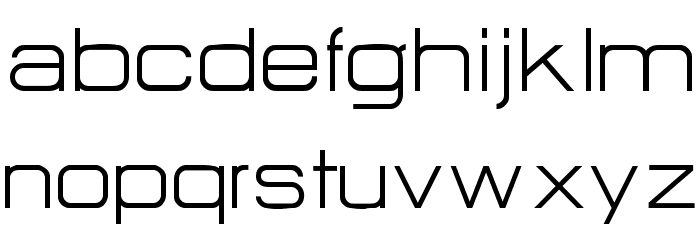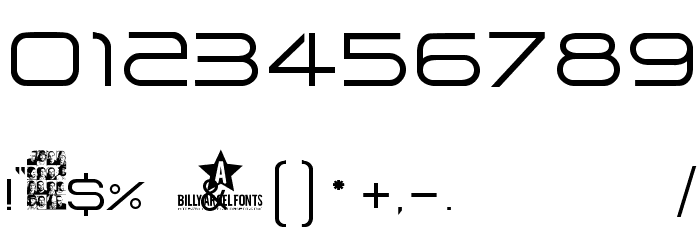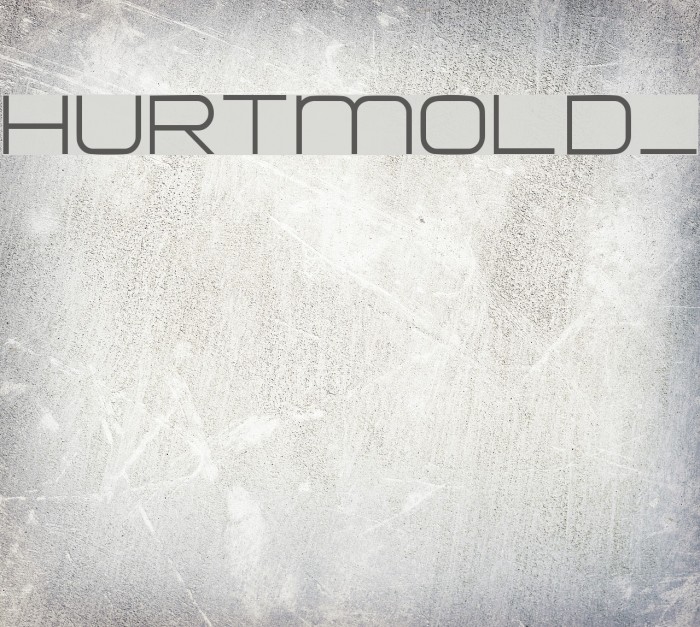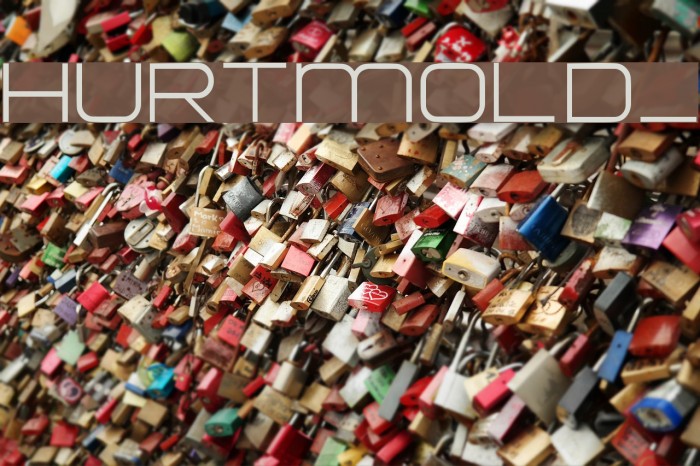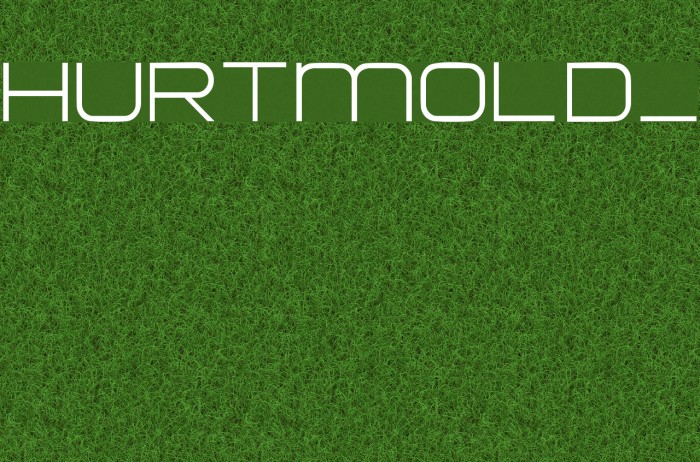
HURTMOLD_ Font
This font features a modern, geometric design with clean lines and a minimalist aesthetic. The uppercase and lowercase letters are uniform in width, creating a balanced and harmonious appearance. The characters are slightly rounded at the corners, adding a touch of softness to the otherwise angular design. The numerals are consistent with the letterforms, maintaining the same geometric style. Special characters are well-integrated, ensuring versatility in various design applications. The overall look is sleek and contemporary, suitable for projects that require a modern and professional touch.
A modern, geometric font with clean lines and a minimalist style.
- Proposed Projects: Ideal for tech branding, modern websites, digital interfaces, and minimalist design projects.
- Use Case: Headlines, Logos, Digital Interfaces